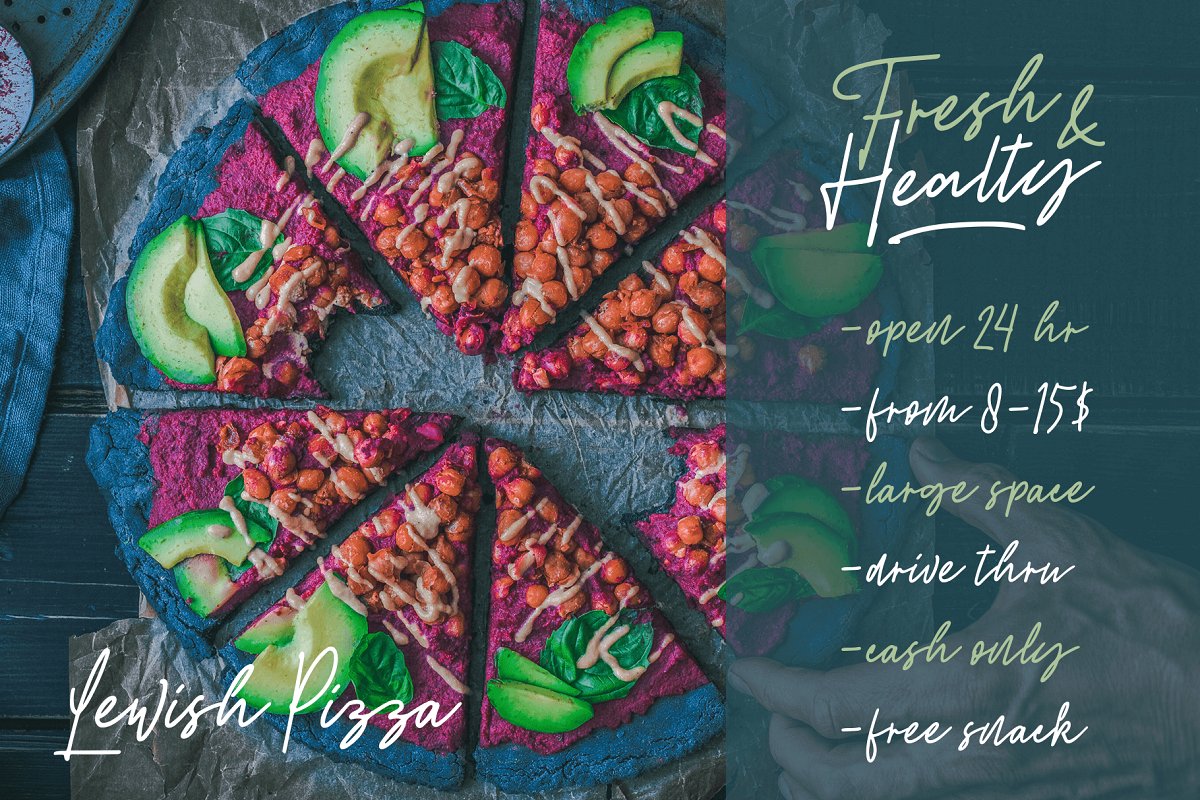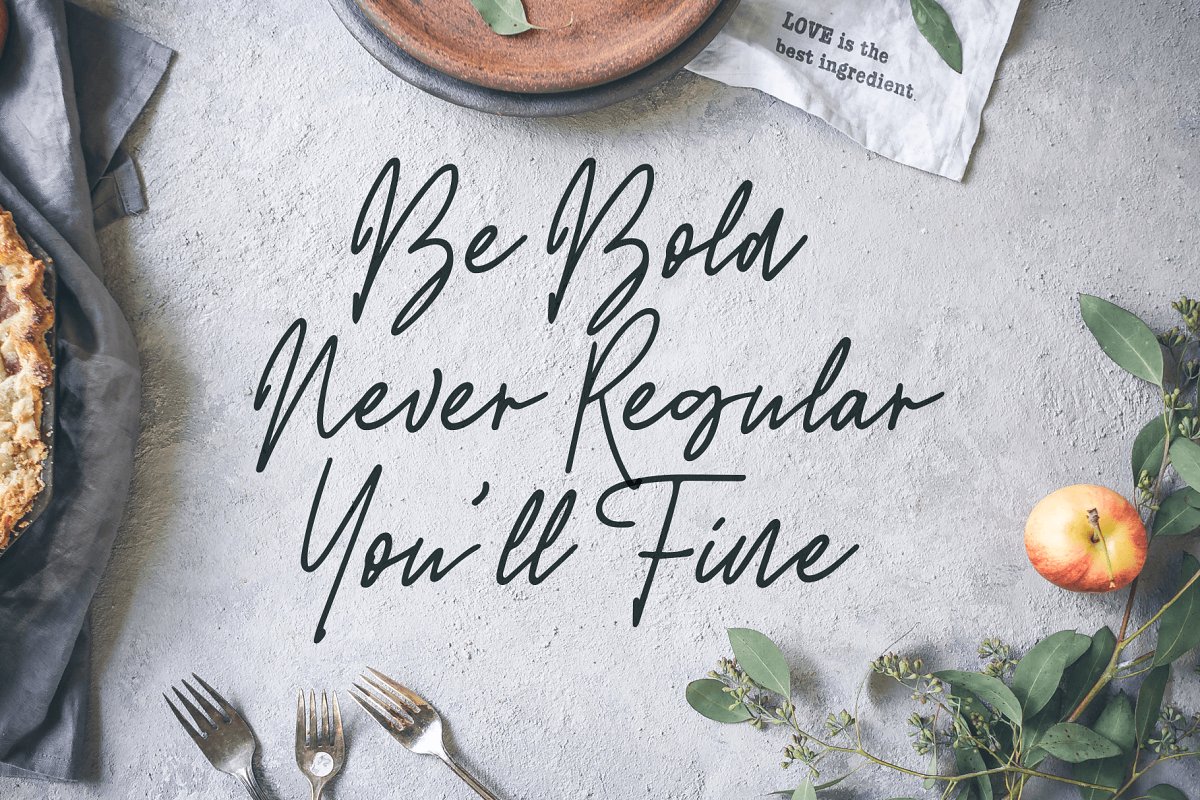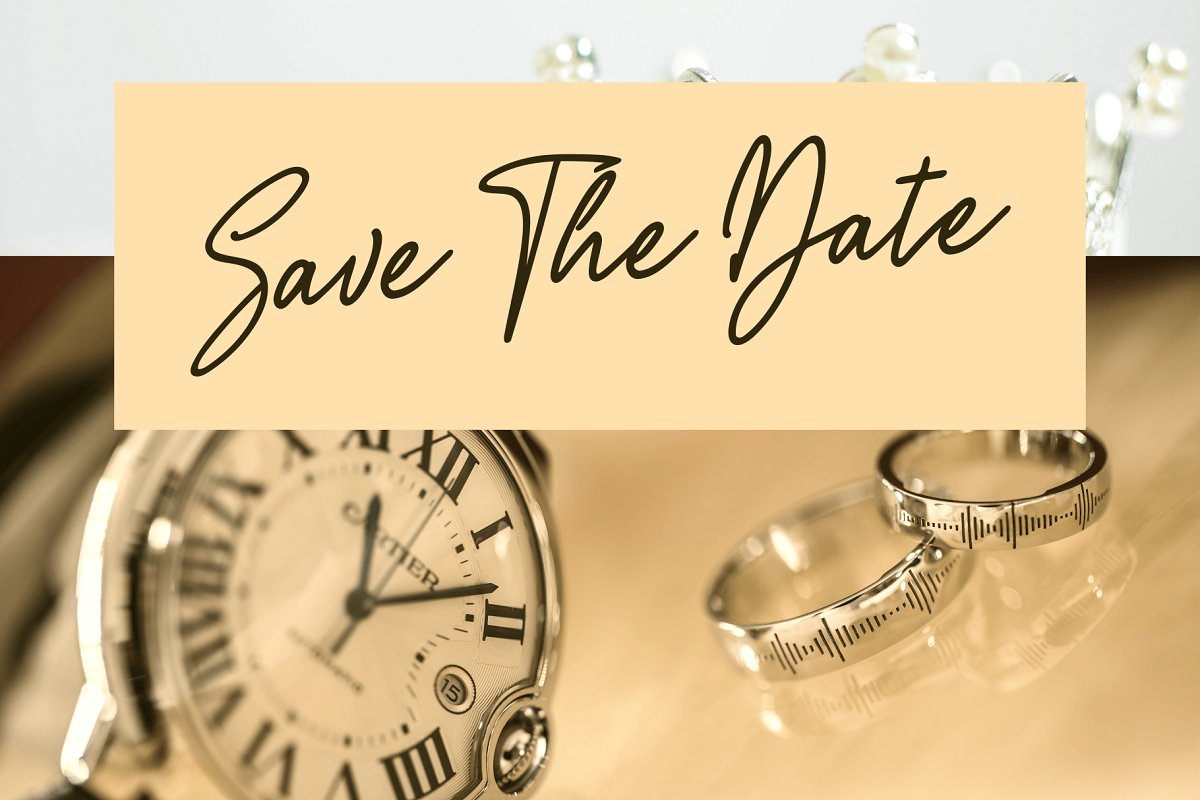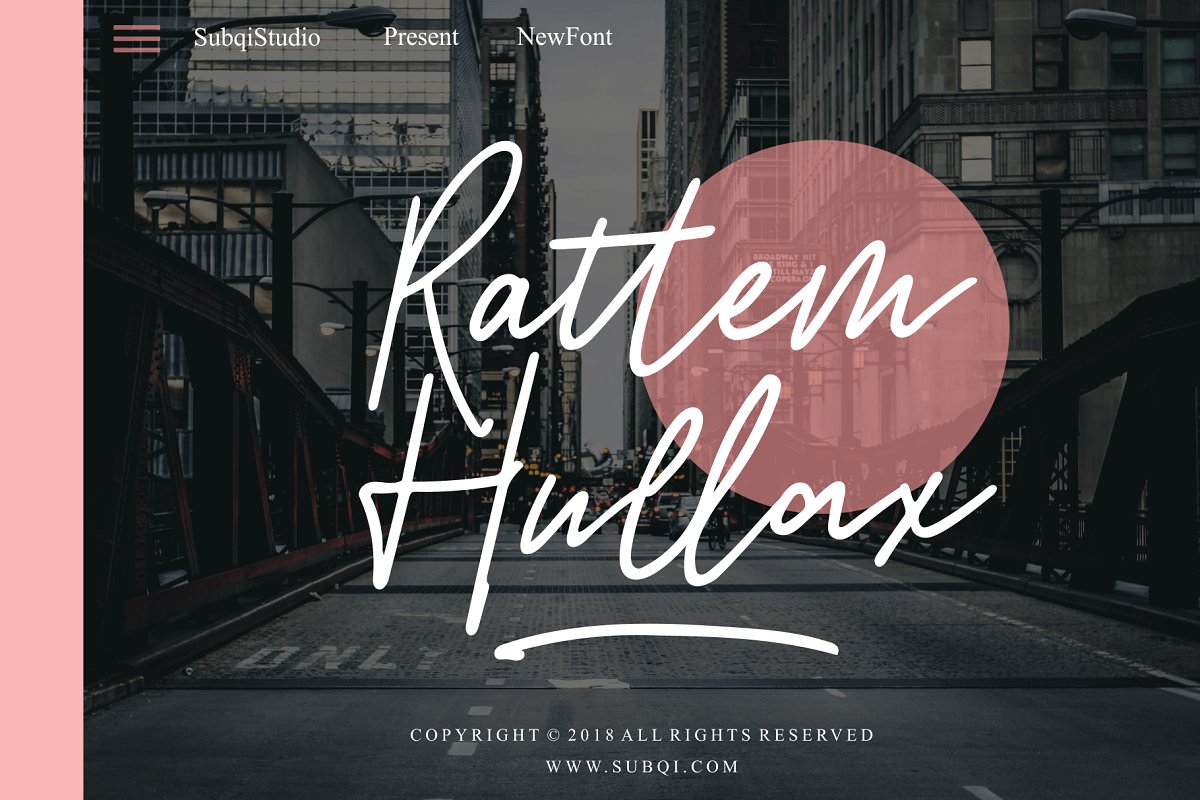
Rattem Hullax Signature Font
A new signature typeface. A perfect addition to the professional designers font. Introducing Rattem Hullax Font. Rattem Hullax – a signature typeface. Handwritten with ballpoint pen feels to it. Feels organic to your design needs. This font is a perfect script designed for all feminine logo projects, printed quotes, lovely wedding invitation cards, Brand, blog posts, and more completely beautiful.